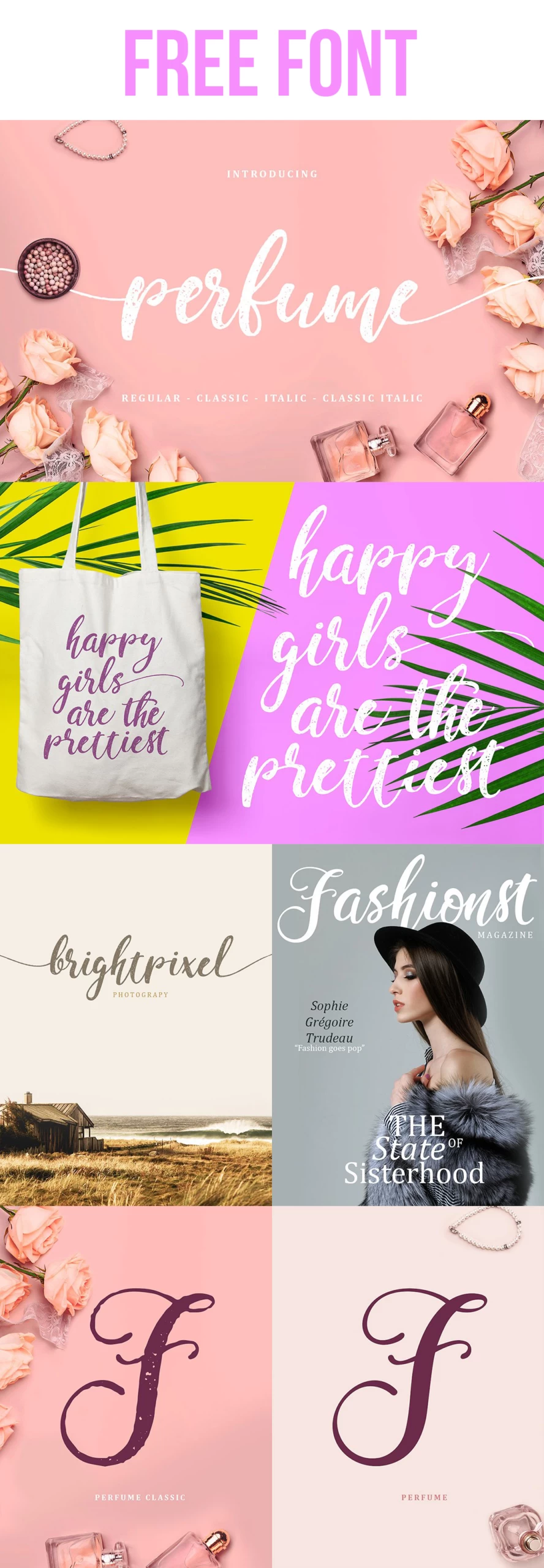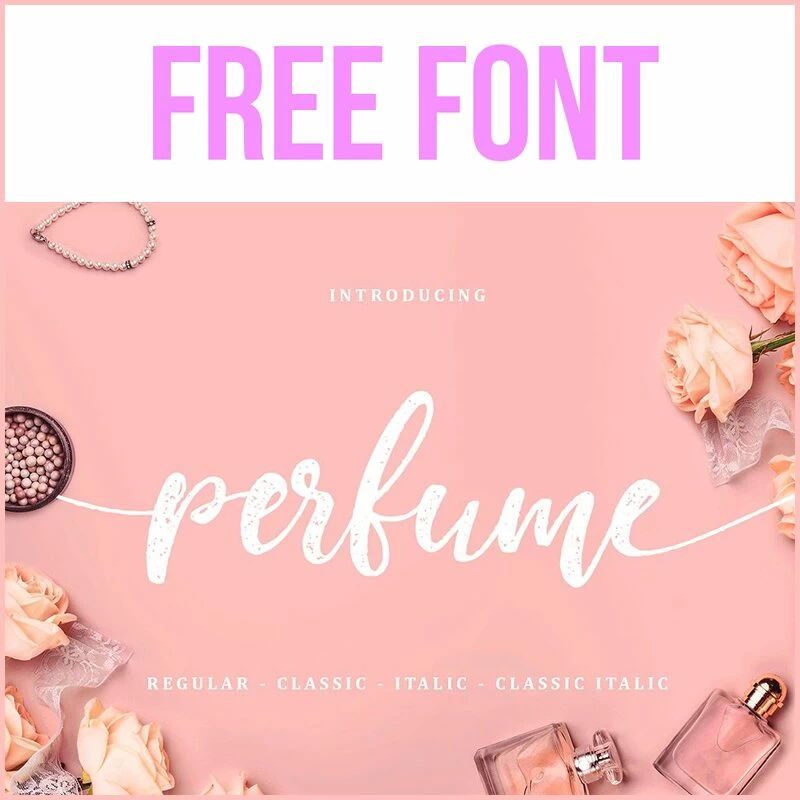
Free Font: Perfume
Say hello to your new gorgeous free rustic brush script family font – Perfume!
Created by FontsGood – Perfume is their first released design all the way from Bali!
Use it for wedding invitations, decor, greeting cards, web design, pretty packaging and so much more!